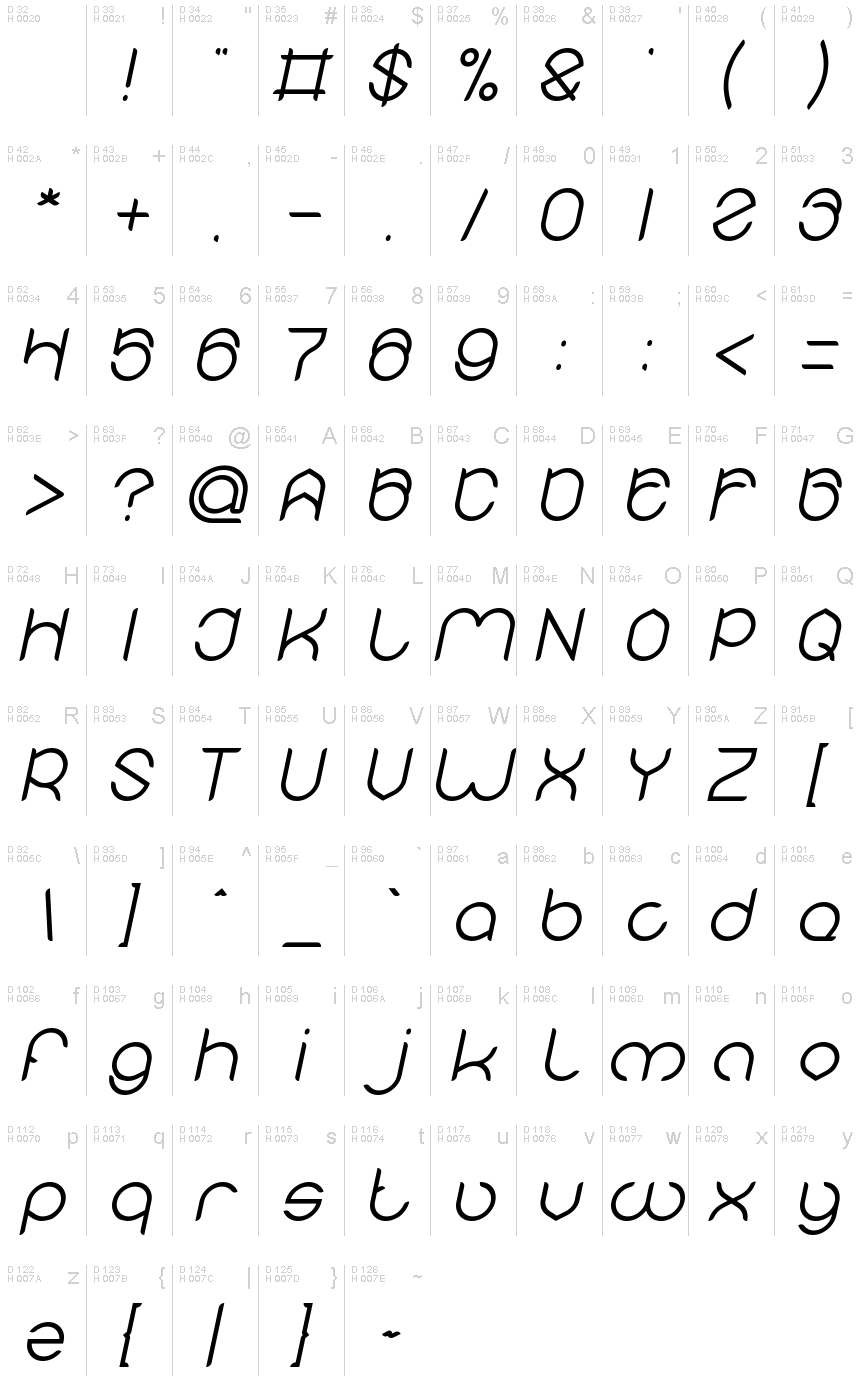
MICHELLE Italic
Michelle is a captivating display font that effortlessly blends elegance and dynamism. The bold, sweeping strokes and distinctive italicized silhouette create a striking visual impact, lending an air of sophistication and energy to any design. Its unique character shines through in the fluid, expressive letterforms, making Michelle an excellent choice for headlines, logos, and branding applications. This font's versatility extends from eye-catching titles to impactful signage, allowing designers to elevate their projects with a touch of refined individuality.
The font's designer, Weknow, has masterfully crafted a typeface that seamlessly balances bold, attention-grabbing appeal with a refined, sophisticated aesthetic. Michelle's versatility makes it a valuable asset for a wide range of design disciplines, from print media to digital interfaces, where it can lend a distinctive and visually captivating flair to any project.